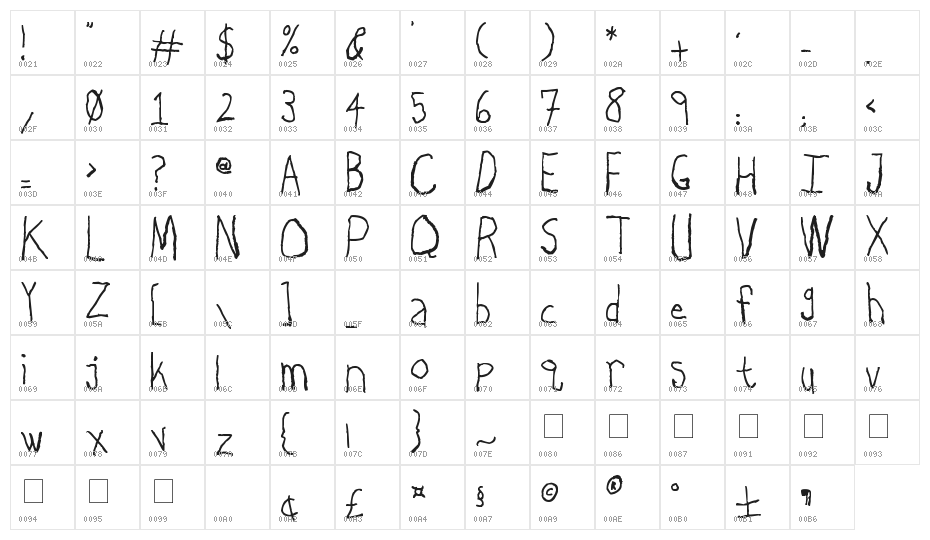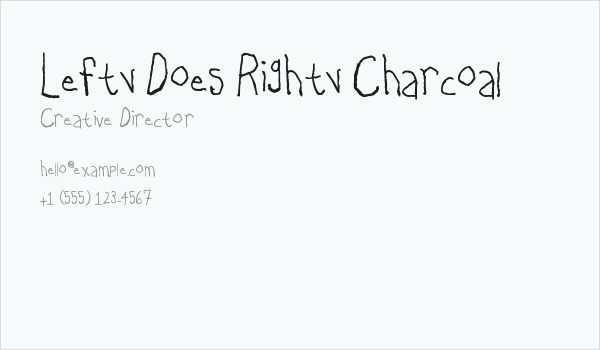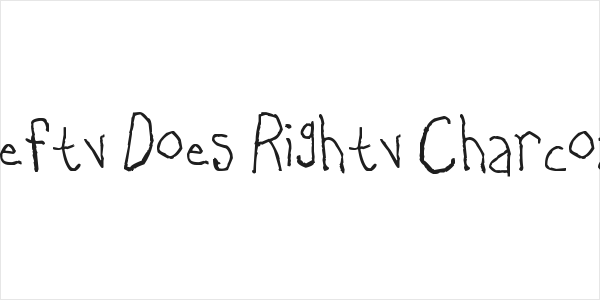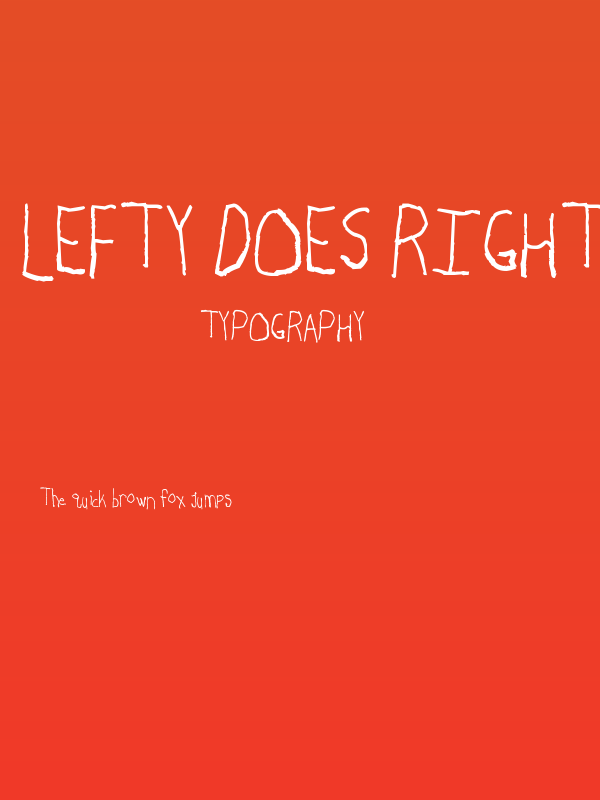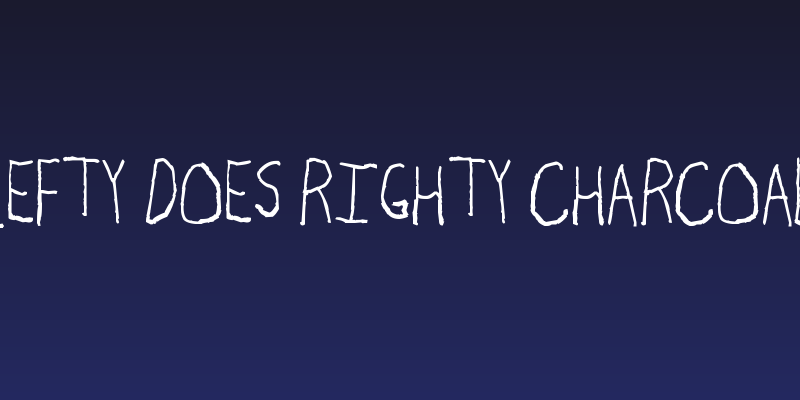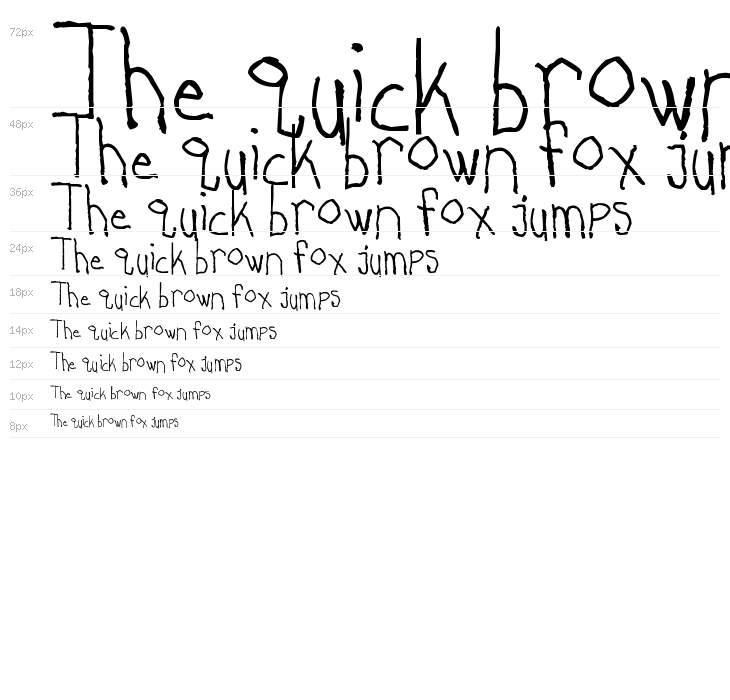
Lefty Does Righty Charcoal Font
Lefty Does Righty Charcoal Description
This font features a hand-drawn, charcoal-like appearance, giving it a rustic and organic feel. The characters are uneven and slightly irregular, mimicking the natural strokes of handwriting. The uppercase and lowercase letters maintain a consistent style, with a playful and artistic flair. Numbers and special characters follow the same aesthetic, adding to the font's cohesive look. The overall design is casual and approachable, making it suitable for projects that require a personal touch.
Use CaseLogos, Headlines, Artistic projects
Proposed ProjectsIdeal for creative projects such as greeting cards, posters, children's books, and artistic branding.